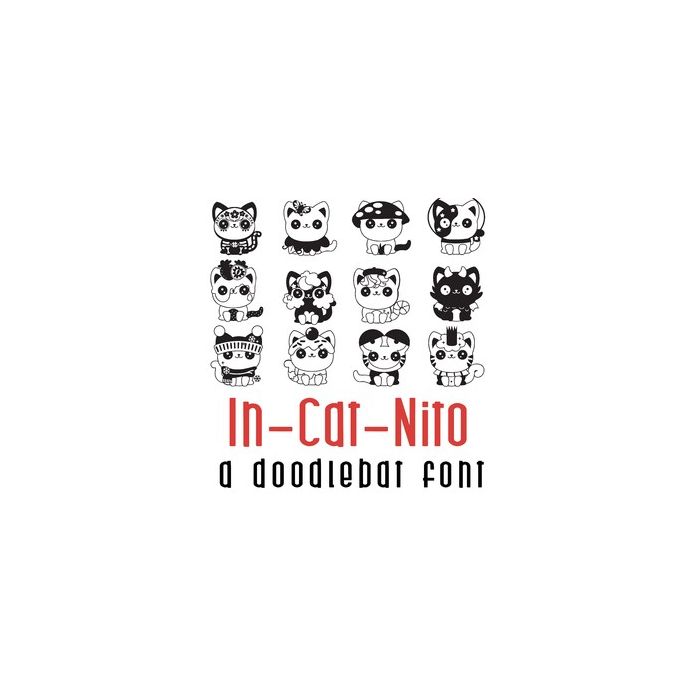
This adorable doodlebat font features 26 cats in disguise. Perfect for cards, crafts, gifts, decor, parties, planner stickers, scrapbook pages and more!